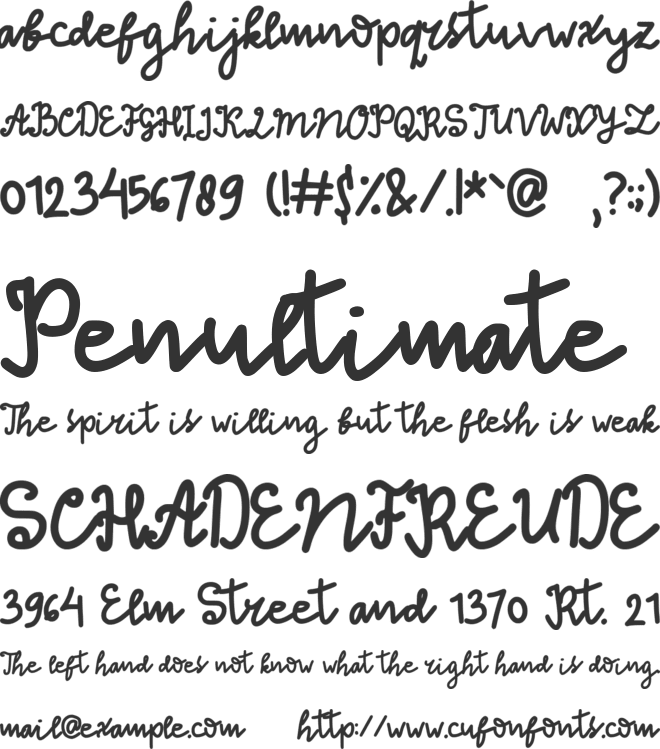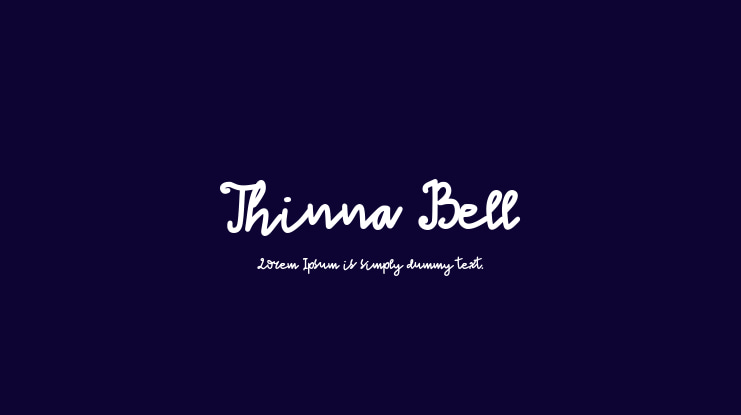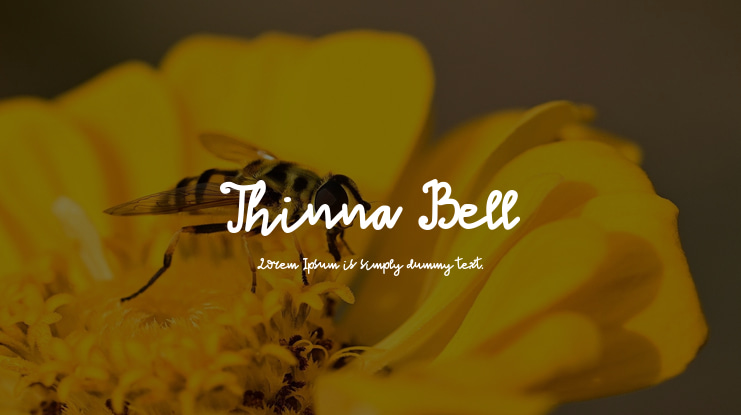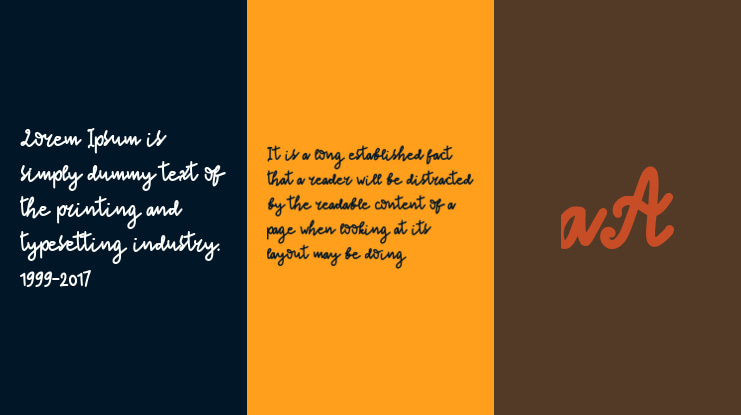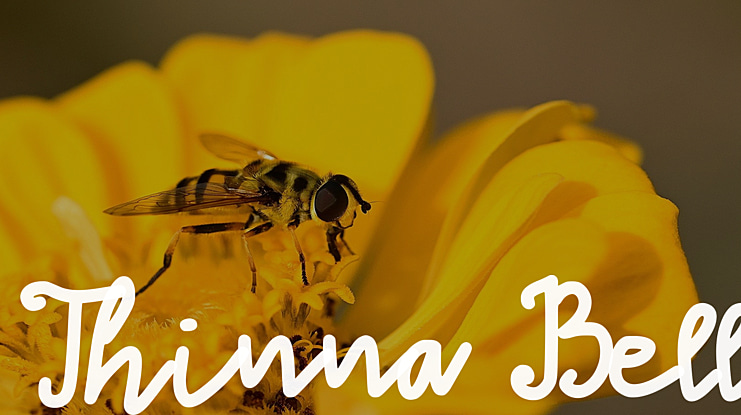
Thinna Bell Font
Introducing by Allouse.Studio
Proudly Present, Tinna Bell.
Tinna Bell is a Modern Bold Script Font
Tinna Bell is perfect for product packaging, branding project, megazine, social media, wedding, or just used to express words above the background.